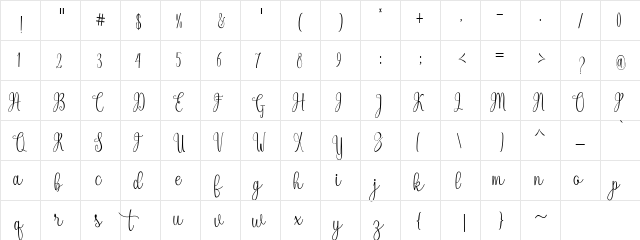
Lazortha Free Regular
Design Context for Lazortha Free Typeface
Lazortha Free is a composed and adaptable typeface that performs quietly and consistently across a wide range of design contexts.